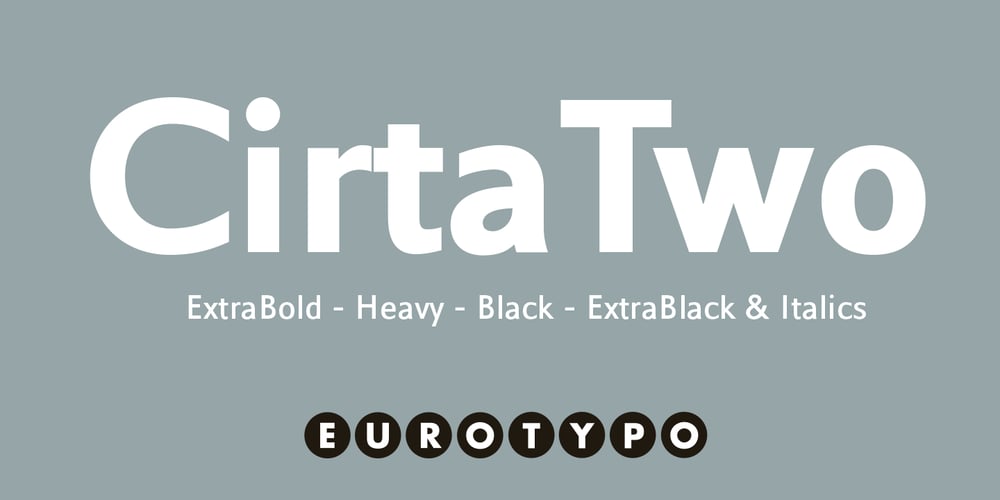
Cirta Two
Cirta Two font
Cirta Two Font Family was designed by Olcar Alcaide and published by Eurotypo. Cirta Two contains 8 styles and family package options. Cirta Two is a robust sans-serif font family which complements the Cirta font series.These fonts were specially designed to use as headlines in advertising, posters, street signs, websites or magazines for its forcefulness, visual impact and legibility.The font family features four weights along with corresponding italic styles. It also includes alternative glyphs for standard and discretionary ligatures, as well as sets of numbers such as numerator, denominator, superscript, and subscript. In addition, it offers mathematical symbols for various mathematical applications.